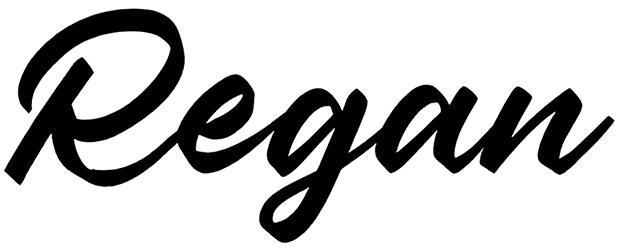
Regan Font
Sometimes there is no room for making any mistake, and on this occasion, a magical script font such as Regan can be your survivor.
This brush font comes with a soft texture and elongated style, thus it looks perfect on a wide set of graphic content like posters, flyers, menus, or product packaging. Needless to say this masterpiece comes with a combination of elegance, drama, and jauntiness.